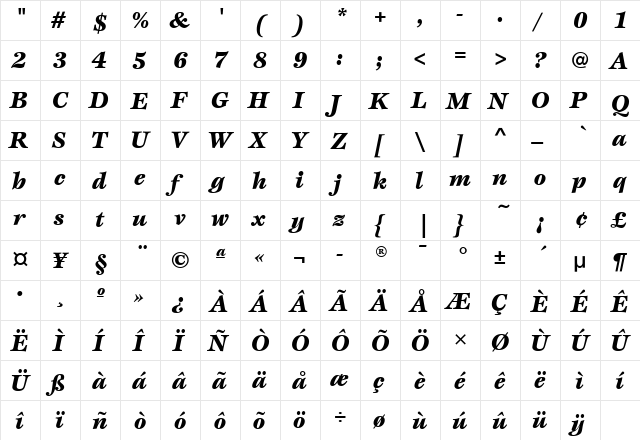
EspritMdITC Black Italic
EspritMdITC offers clean, dependable letterforms without strong stylistic allegiance, making it a practical choice for designers who need flexibility. The slanted form adds forward momentum and visual energy.
Pro Tip: Try EspritMdITC for annotation and caption copy alongside an upright companion — the contrast in angle creates a dynamic but ordered typographic system.